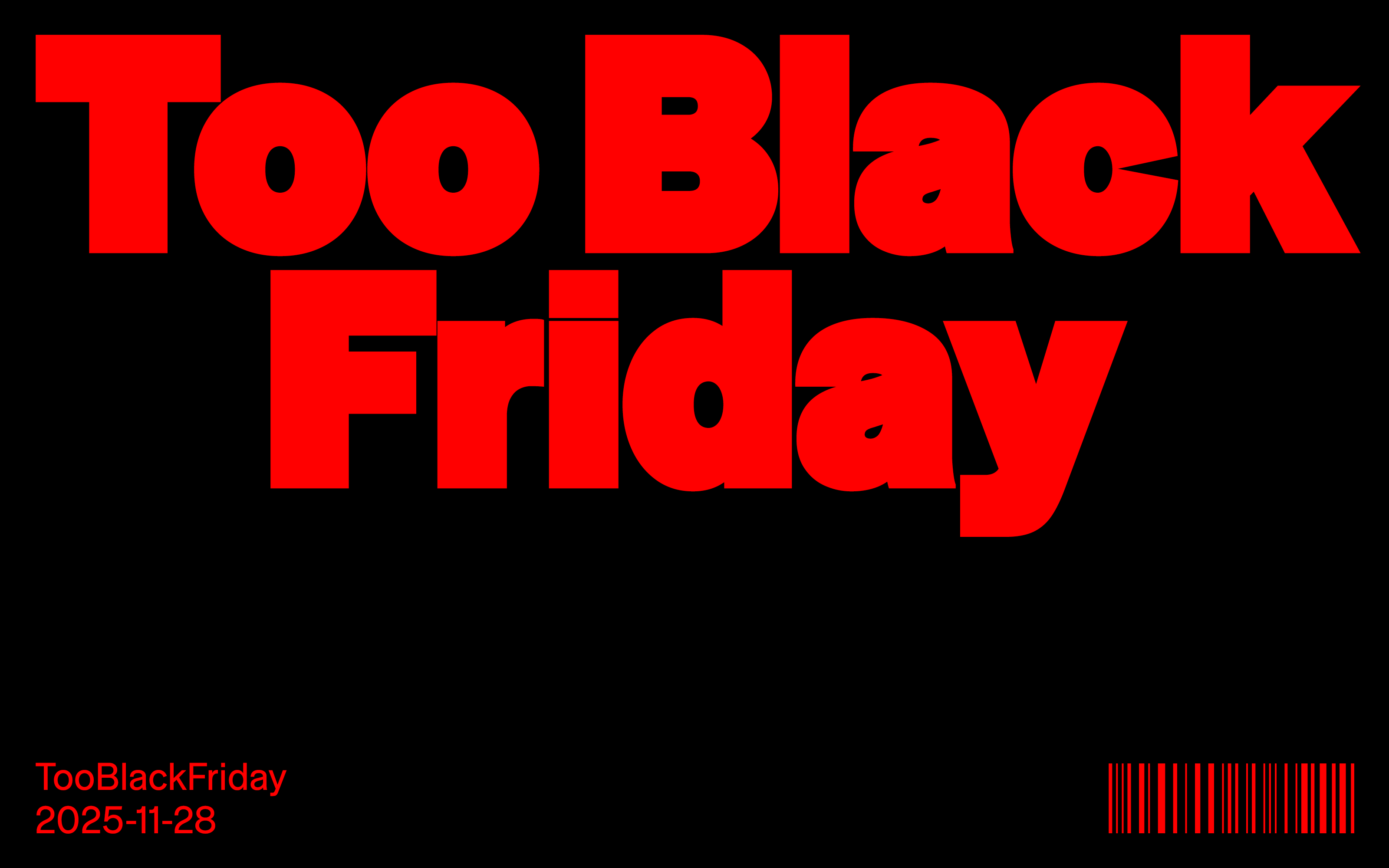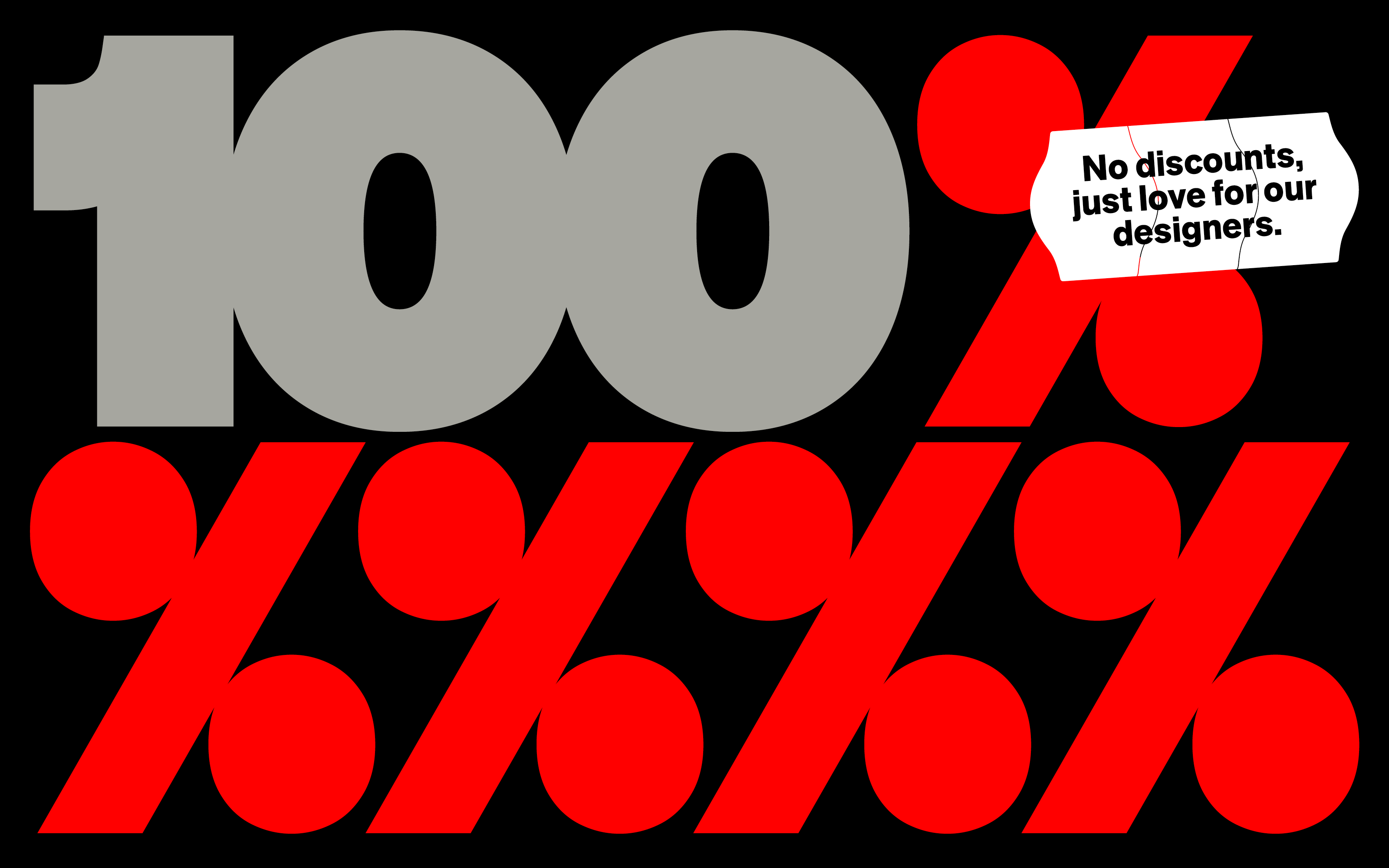
In recent years, Black Friday madness has reached exhausting proportions. It now dominates all industries, with the possible exception of funeral homes (die today for a 50% discount!). What’s more, no one seems to mind that a Friday in the third millennium lasts several weeks.
Black Friday has become a symbol of an insatiable and unsustainable hunger for more. More consumption, more sales, more waste of valuable resources.
But what can be done to counter this madness?
Might we suggest a little love, a little appreciation, a little respect?
Our idea is not to devalue our fonts, which have been lovingly created with great attention to detail, through discount wars. Instead, we will pass on 100% of the foundry’s share of the revenue, i.e., the total revenue from our web shop to the respective designers.
Without our fantastic designers – Aad, Alessio, Andreas, Anja, Christine, Christoph, Daniel, Erik, Felix, Franziska, Gabriel, Hendrik, Jan, Joe, Jörg, Katja, Loris, Noheul, Olli, Ralph, Ulrike and more to follow soon – there would be no fonts, and there would be no Fontwerk.
The idea is not new. For five years now, Bandcamp Friday has been offering musicians and artists a wonderful alternative for generating additional income alongside its fundamentally appreciative and artist-first model, in a marked contrast to the other more ‘profit-hungry’ streaming platforms.
By the way: The name ‘Too Black Friday’ is inspired by the boldest weight of our latest typeface release, Tausend (by Christoph Koeberlin and Gabriel Richter), which also goes beyond the usual level of boldness. Some of the artwork above – which was designed by the amazing Jana Heinz – is typeset in this style.